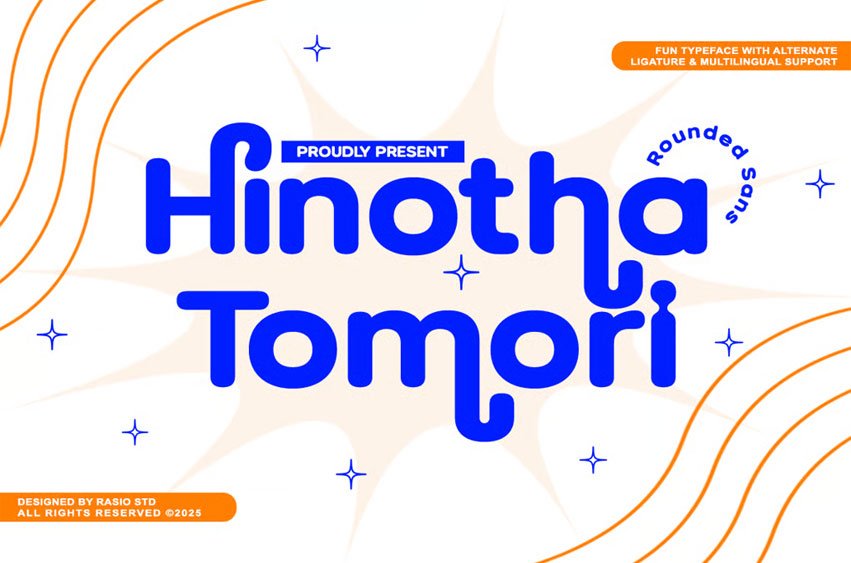
Hinotha Tomori Font is a fun rounded sans typeface with a playful and friendly character. Its soft curves, bold proportions, and quirky alternates make it perfect for cheerful branding, social media design, packaging, posters, and children’s products. The smooth rounded edges give it a modern yet approachable vibe, balancing readability and personality. Includes uppercase, lowercase, numbers, punctuation, alternates, ligatures, and multilingual support.
Relevance and Use Cases is perfect for kids’ branding, playful logos, food & snack packaging, social media quotes, lifestyle branding, cheerful posters, product labels, educational materials, and creative merchandise.